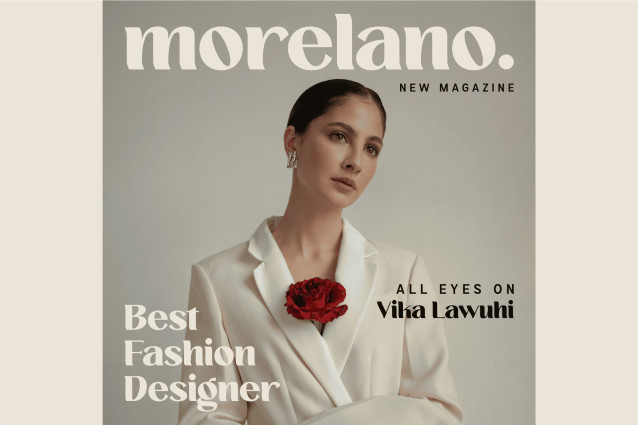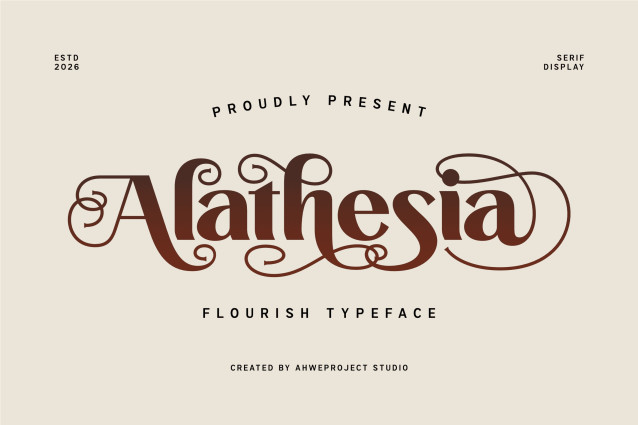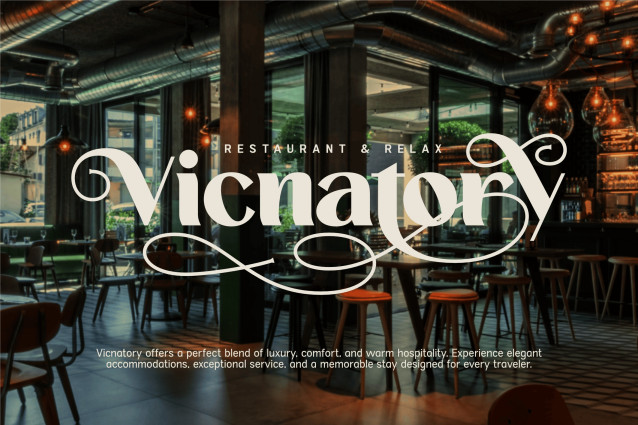
Alathesia Font
Alathesia is a luxurious serif display font designed to make every word unforgettable. Featuring elegant letterforms paired with beautifully crafted flourishes, this typeface brings timeless sophistication to branding, wedding invitations, logos, packaging, fashion editorials, cosmetic products, luxury businesses, and premium marketing materials. Every curve is carefully designed to create a graceful, high-end aesthetic while maintaining excellent readability.
Whether you’re creating an upscale brand identity or adding a refined touch to your next creative project, Alathesia delivers the perfect balance of classic beauty and modern elegance. With its decorative swashes and distinctive serif style, this font transforms ordinary typography into eye-catching artwork that leaves a lasting impression.
Ideal for designers, entrepreneurs, and creatives looking for a premium serif font that stands out with elegance and personality.